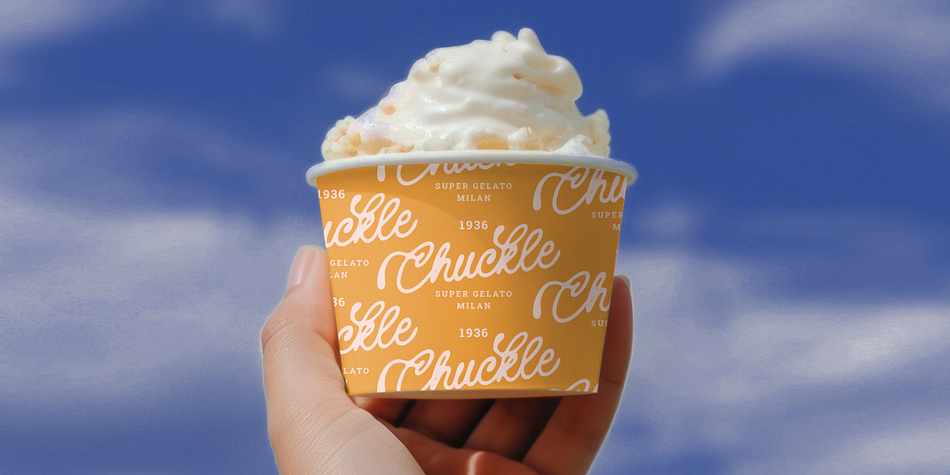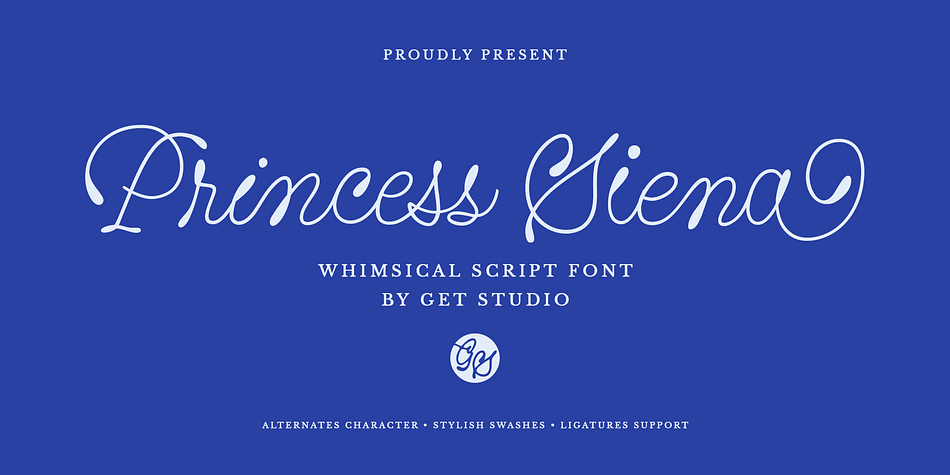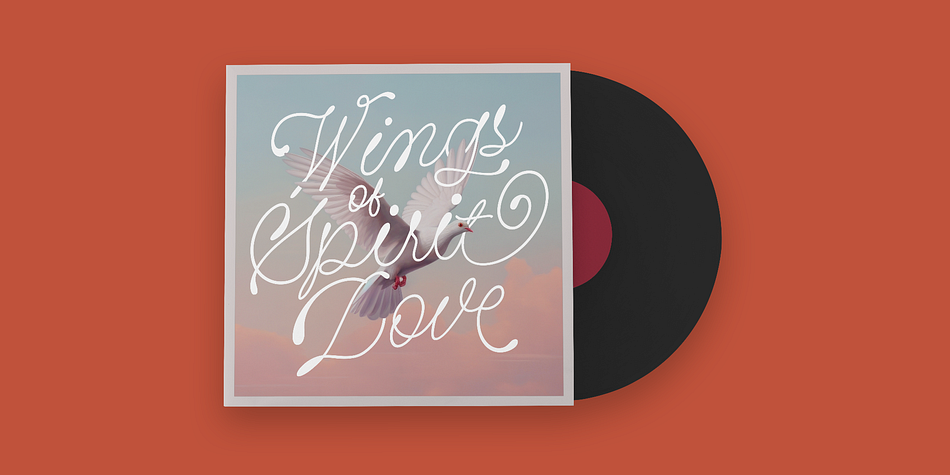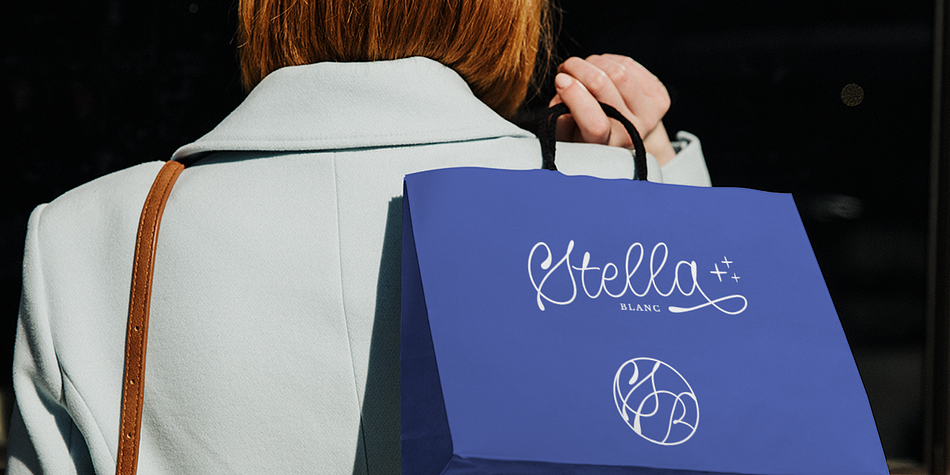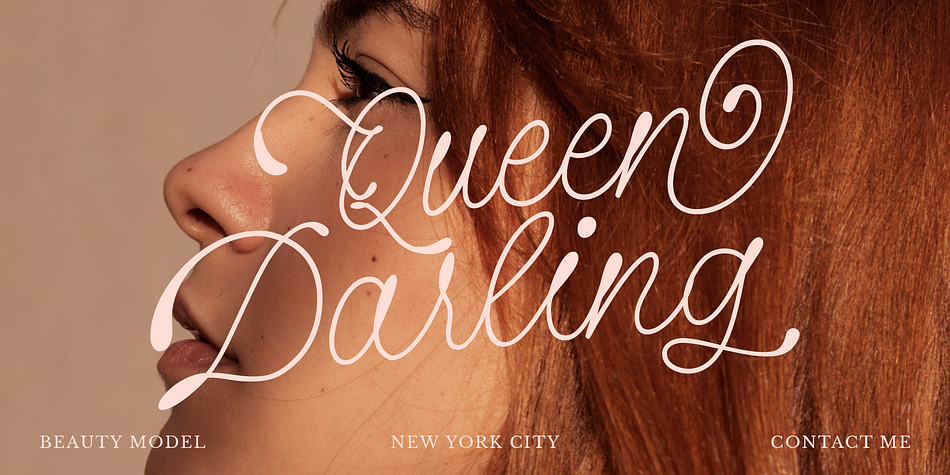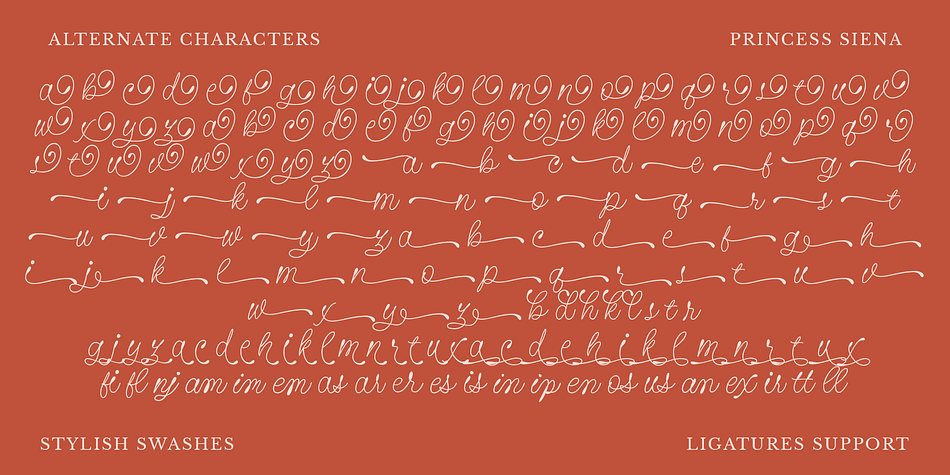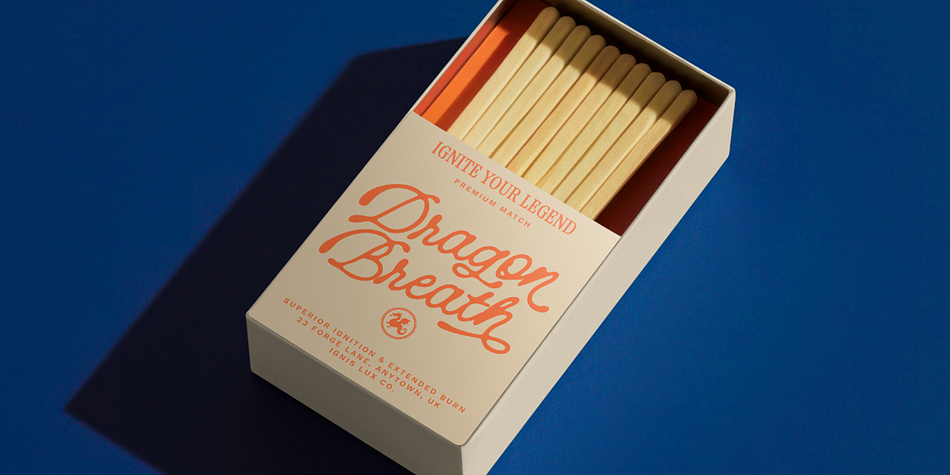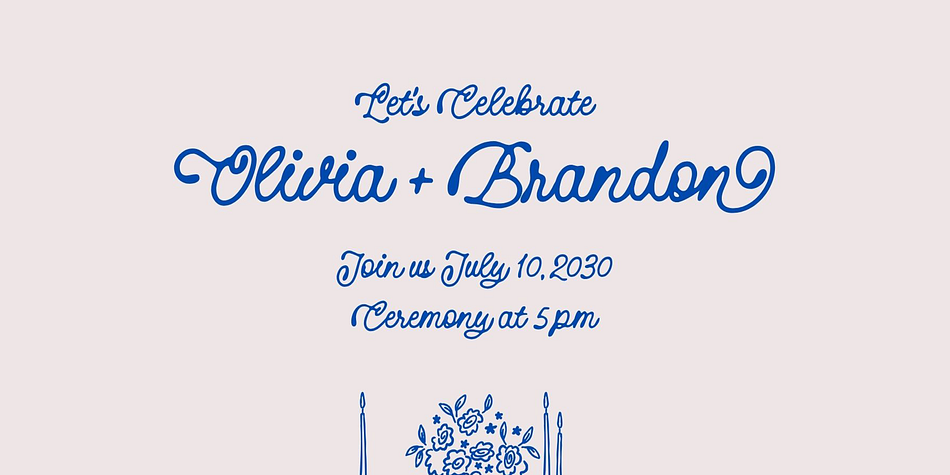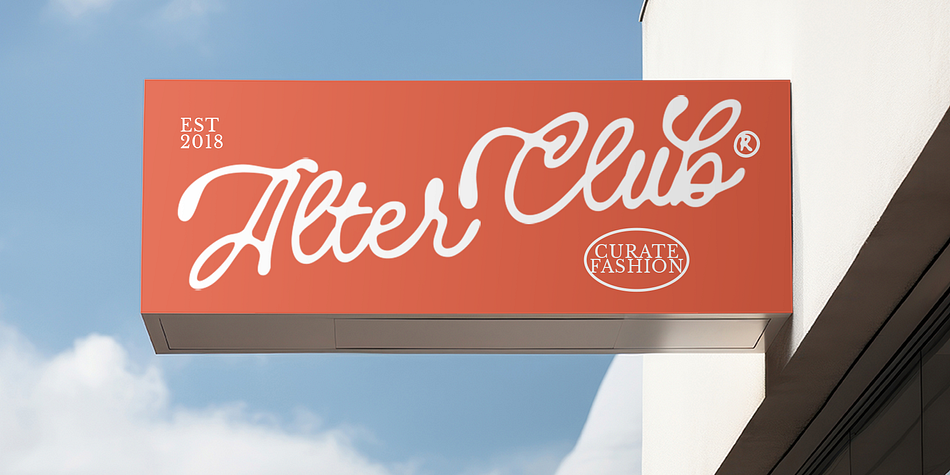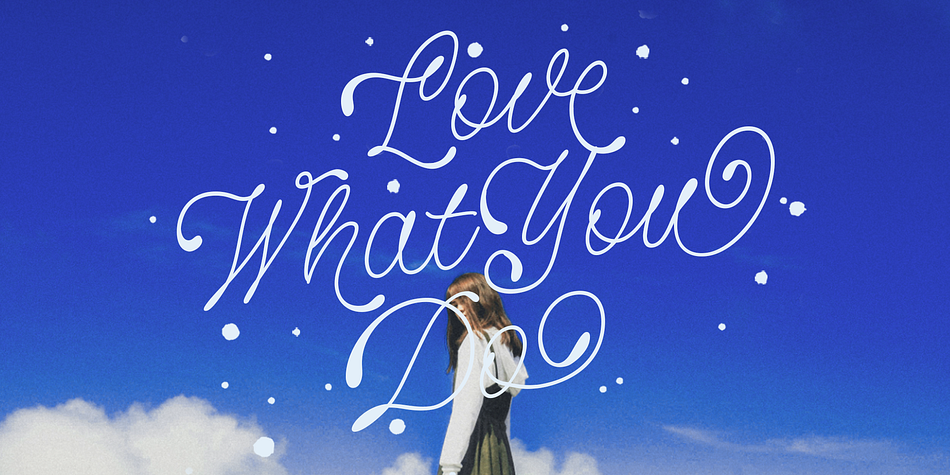
Princess Siena
Designed by Hermansyah ., Princess Siena is a brush script font family. This typeface has two styles and was published by Get Studio.
Princess Siena is a whimsical monoline script font that captures elegance, charm, and softness in every stroke. Its graceful, flowing letterforms bring a fairytale-like touch to your creative projects—perfect for wedding invitations, feminine branding, romantic stationery, and more.
Designed to feel both playful and refined, Princess Siena turns every word into a magical visual story.